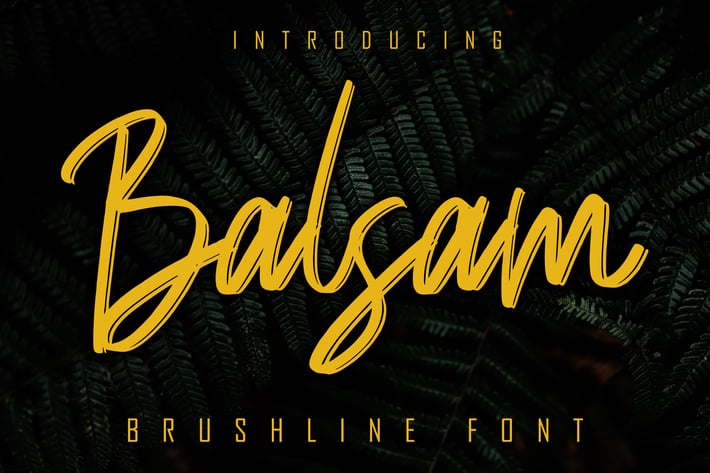
Balsam Brushline Font
Balsam is a natural handmade textured brush text font with an irregular base line. Suitable for use in title design. Such as clothing, covers, book titles, films, quotes, branding, logos, greeting cards, t-shirts, packaging designs, posters, and others. Balsam includes the full set of upper and lower case letters, as well as multi-language support, numbers, punctuation,
Basic Latin Language Support (AÀÁÂÃÄÅCÇDÐEÈÉÊËIÌÍÎÏÑOØÒÓÔÕÖUÙÜÚÛWYÝŸÆß )